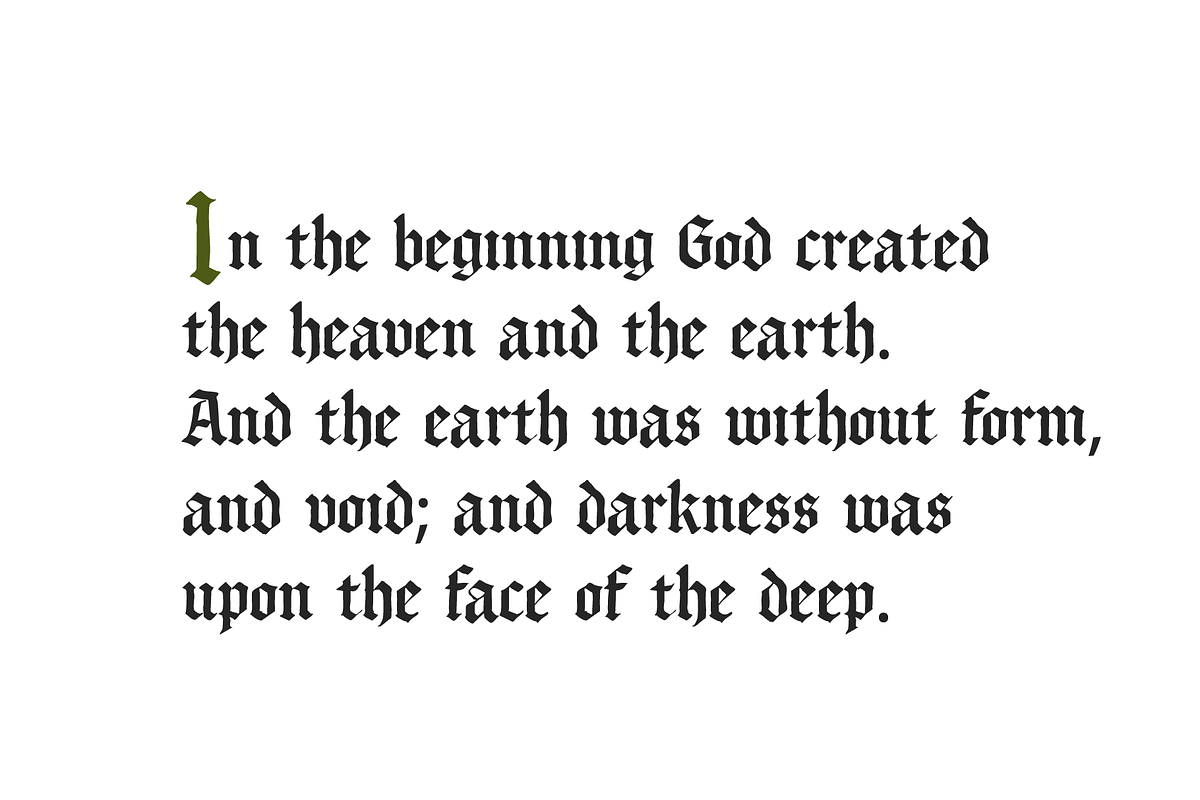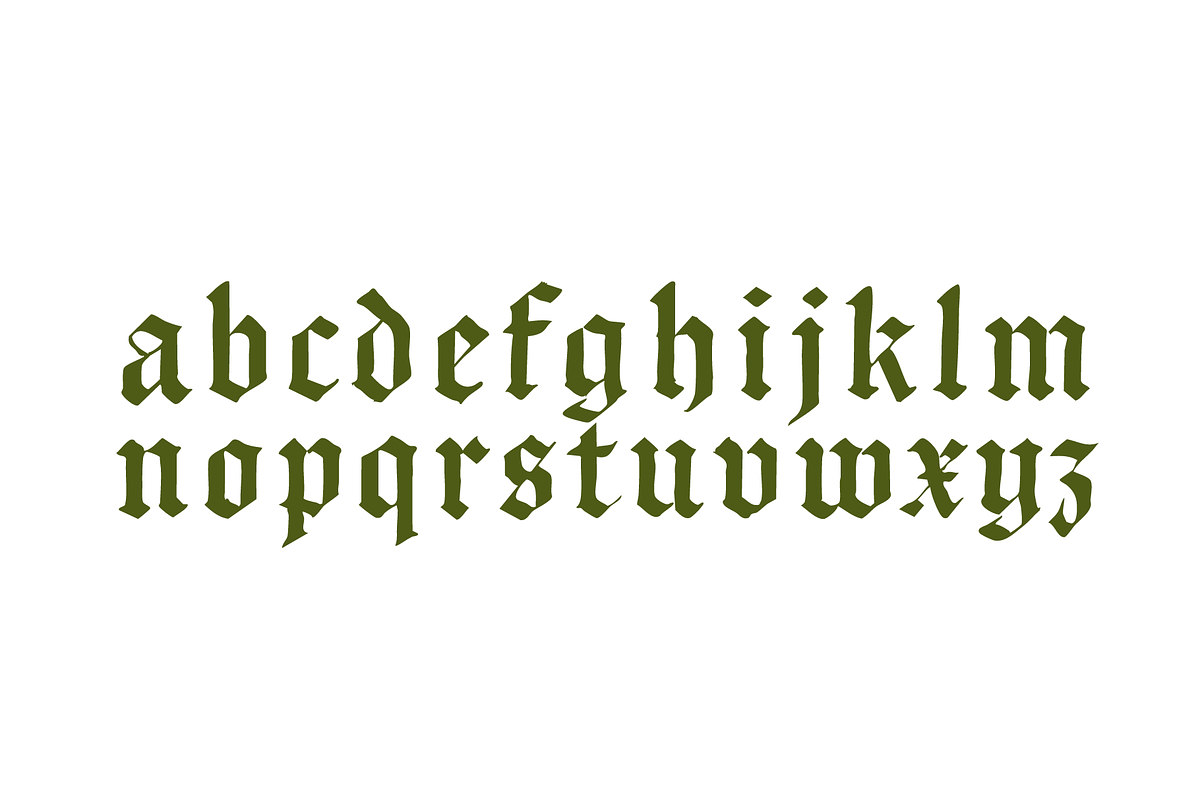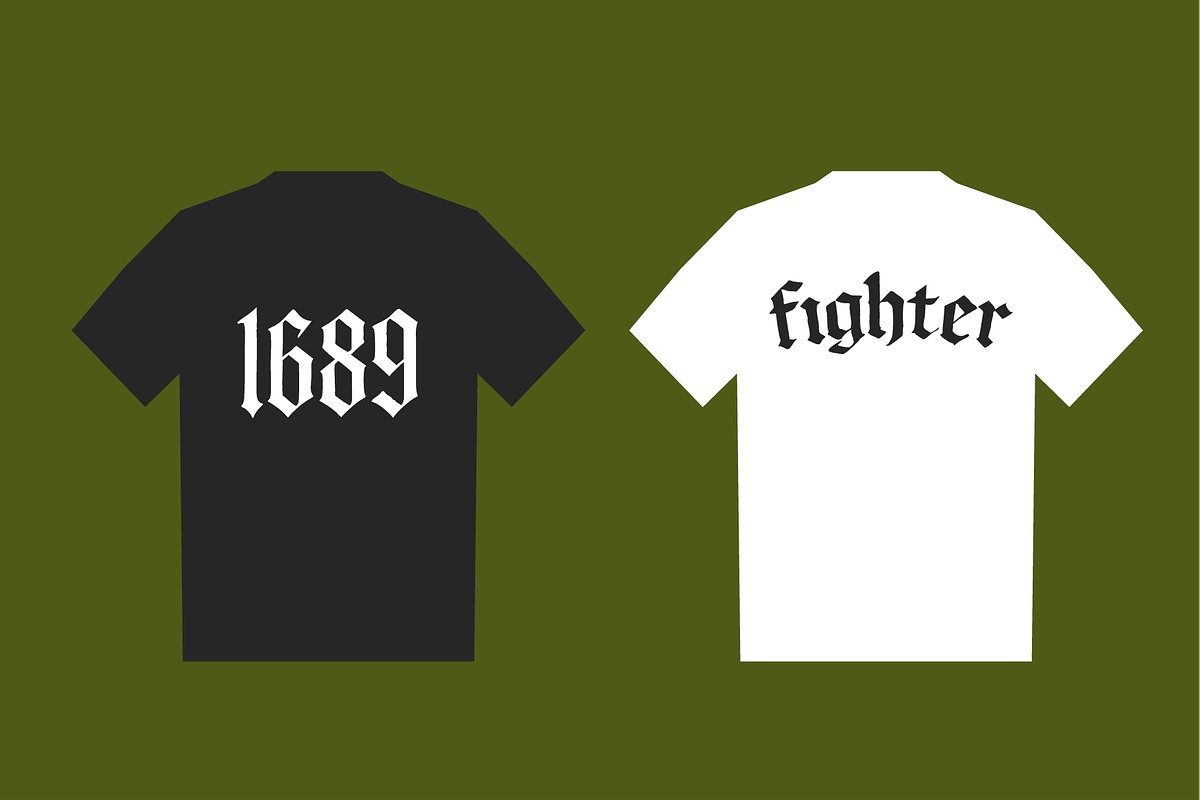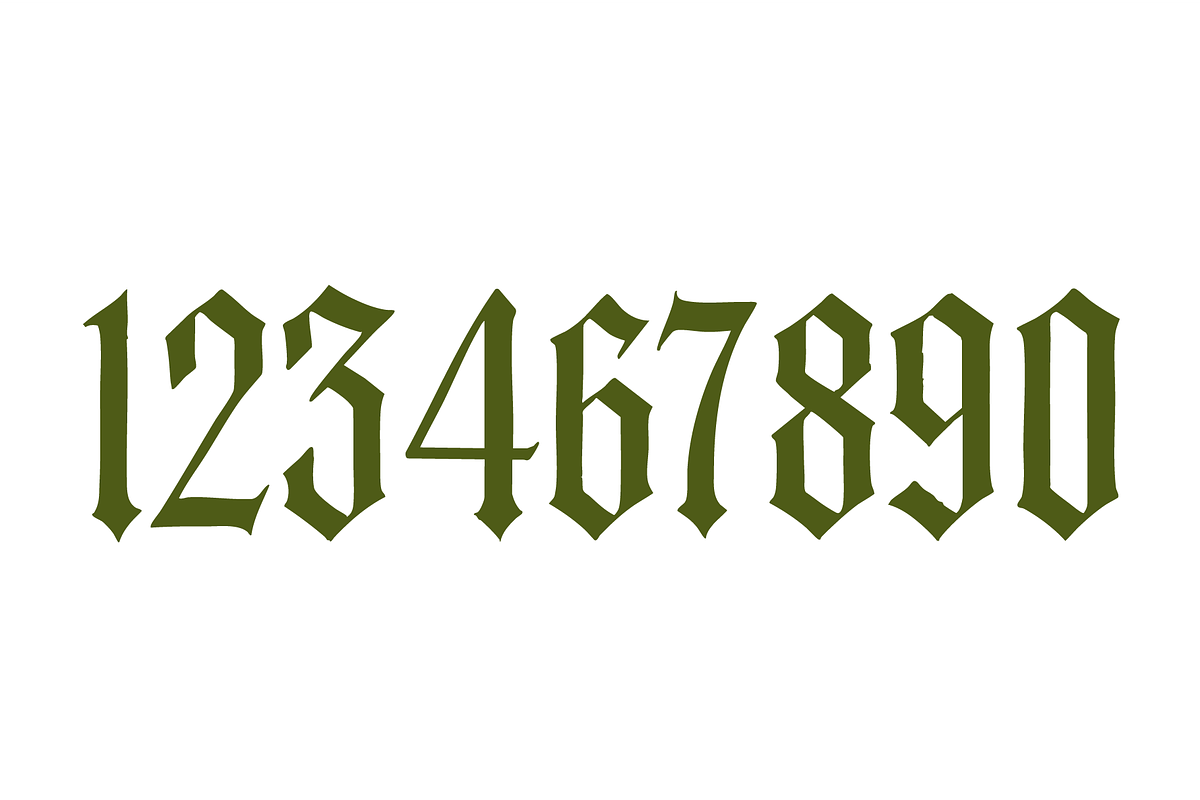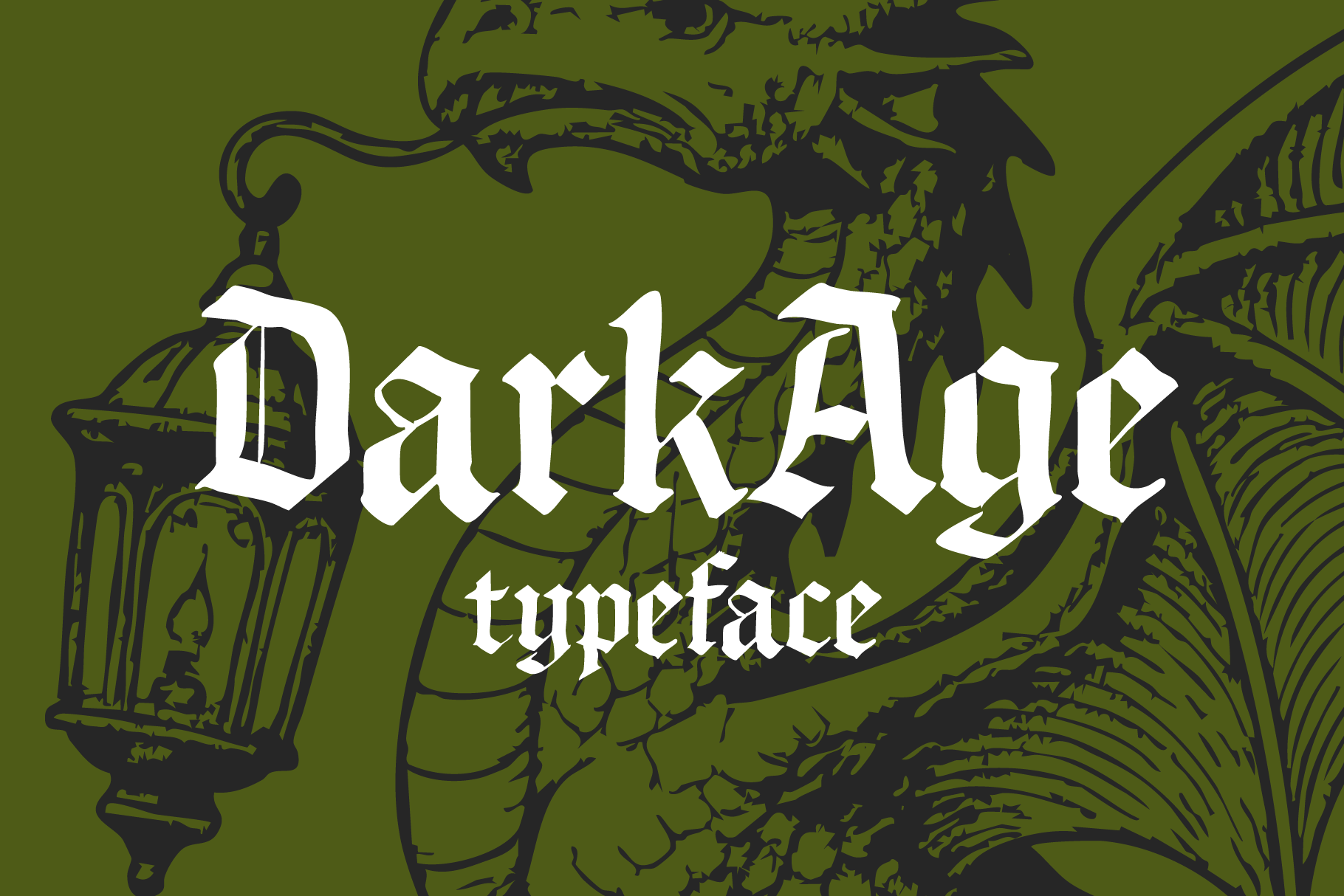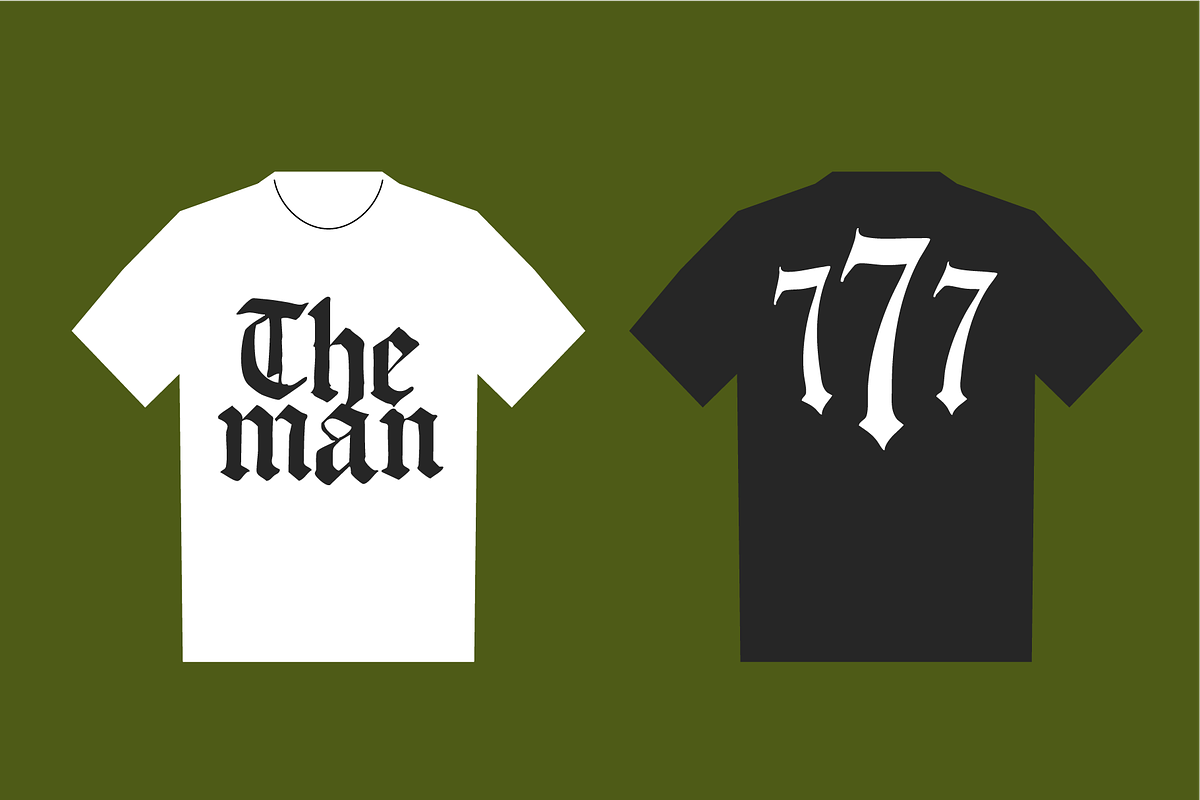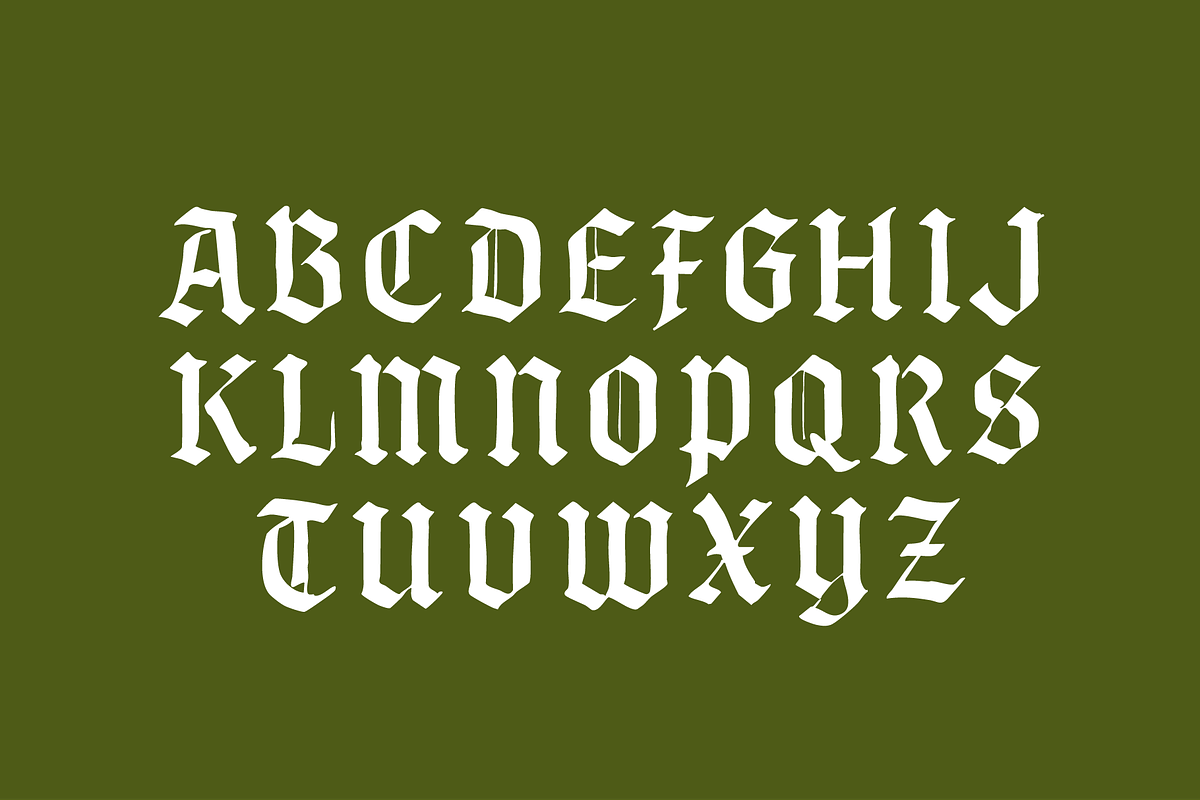
Medieval Sword Blackletter font
Hello! I've been inspired by Medieval knights aesthetics to create this font which is getting more popular in modern underground design.
If you are looking for a font for your T-shirt, alcohol, label, poster design, the DARK AGE is what you need.
Uppercase and lowercase font Numbers 0-9